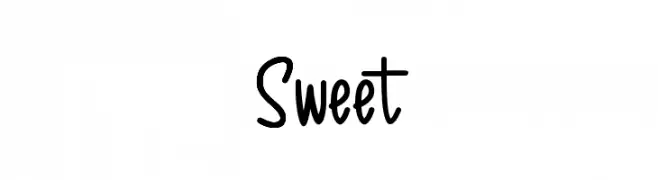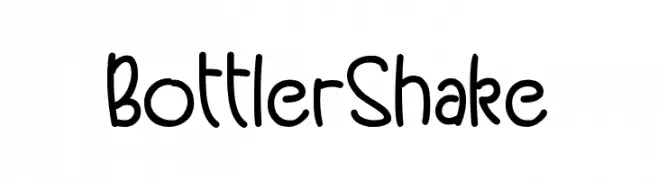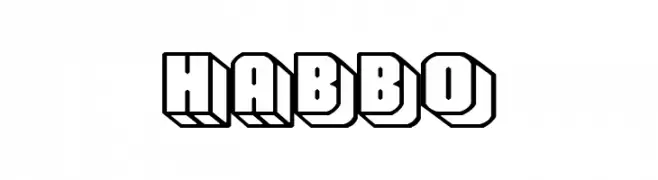
A playful, hand-drawn style font with rounded, smooth strokes.
A bold, 3D block-style font with a geometric, shadowed design.
A dynamic, handwritten font with bold strokes and playful curves.
A dramatic Gothic font with intricate detailing and high contrast.
A pixelated, LCD-inspired font with a retro digital aesthetic.
A geometric, monospaced font with a modern, digital aesthetic.
A classic serif font with elegant curves and strong readability.
A bold, handwritten font with a playful and dynamic style.
A bold, expressive handwritten font with dynamic brush strokes.